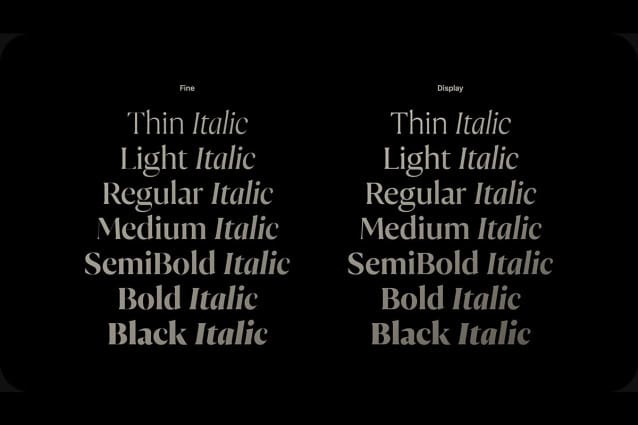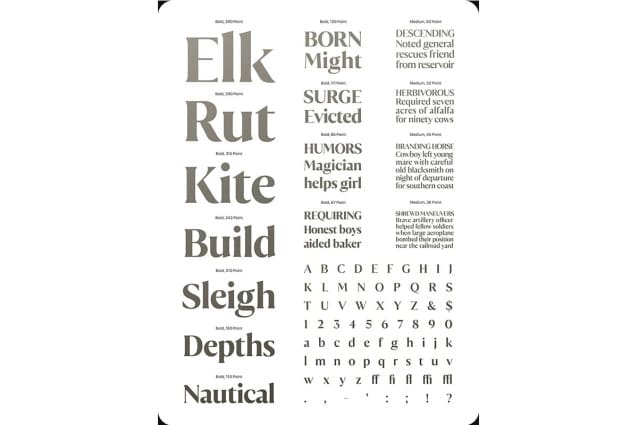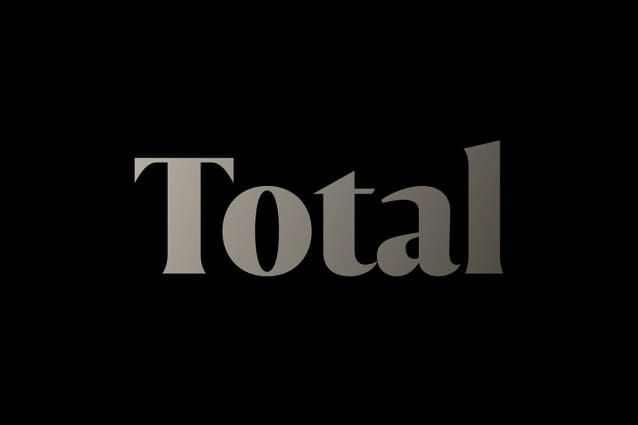
FH Total Font Family
FH Total Font Family is a High Contrast Serif Font Inspired by old style and contemporary Fonts. The FHTotal Family was created Based on the fonts produced by Jan van Krimpen in the late 1930s. FHTotal Fine is generally produced for headline sizes. FHTotal Display, on the other hand, is designed with a less contrast structure.
Thus, it shows that it is designed to be used both on screens and in heading and subheading sections. It is a sharp and rich serif. Unlike fonts such as Times and Garamond, it has more elegant curves. FH Total italics focus on distinctive strokes, unlike traditional italics.